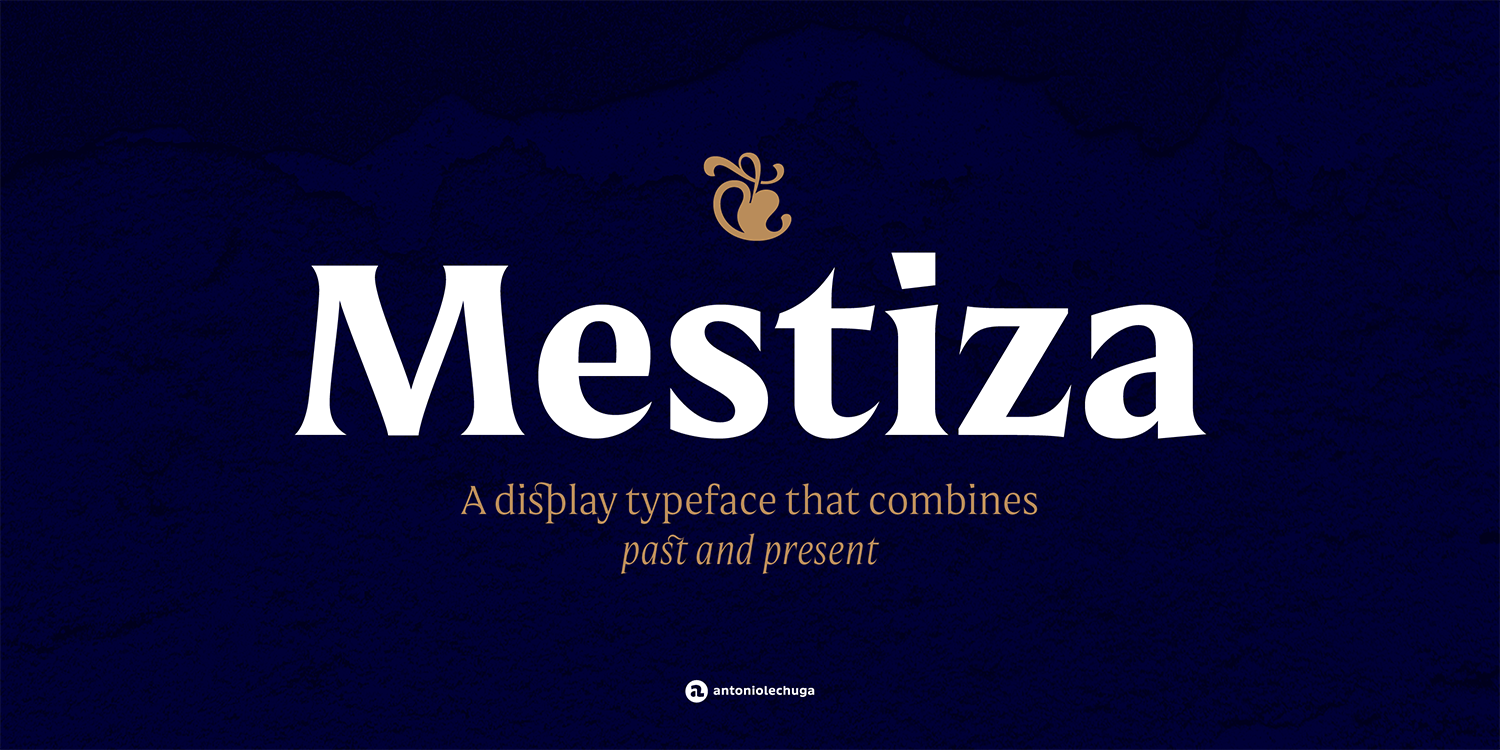
Mestiza Font is an artistic and expressive serif typeface that is perfect for design projects that require a touch of elegance, character, and sophistication. Its high contrast and refined serifs give it a classic yet modern feel, making it an excellent choice for high-end branding, fashion magazines, editorial design, luxury product packaging, and elegant invitations. This font is especially effective for creating stunning headlines and titles that draw the eye and leave a lasting impression. The Mestiza Font Free Download is your chance to experiment with this beautiful typeface and elevate your personal design projects.
What makes Mestiza Font so exciting is its unique blend of traditional elegance and contemporary flair. The subtle curves and fine details in its letterforms give it a distinct personality that is both graceful and bold. It manages to feel both timeless and fresh, making it a versatile tool for designers who want to create a brand identity that is memorable and sophisticated. The high contrast between thick and thin strokes adds a dramatic visual interest, ensuring that the font stands out in any layout. Its elegant style makes it a powerful asset for conveying luxury, art, and high quality.
The Mestiza Font family is designed to provide you with the flexibility you need for complex designs. It includes a variety of weights, such as Mestiza Thin, Mestiza Light, Mestiza Regular, Mestiza Medium, Mestiza Semi-Bold, Mestiza Bold, and Mestiza Black. This comprehensive selection allows you to create a dynamic typographic hierarchy, using the lighter weights for subtle elegance and the bolder weights for powerful statements. The variety within the family ensures that your designs are cohesive and professional, with every element from headlines to body text working together in harmony.
This font is more than a typeface; it is a design statement that adds a layer of class and artistic integrity to any project. Its refined and stylish nature makes it an essential tool for designers looking to create stunning visual experiences.